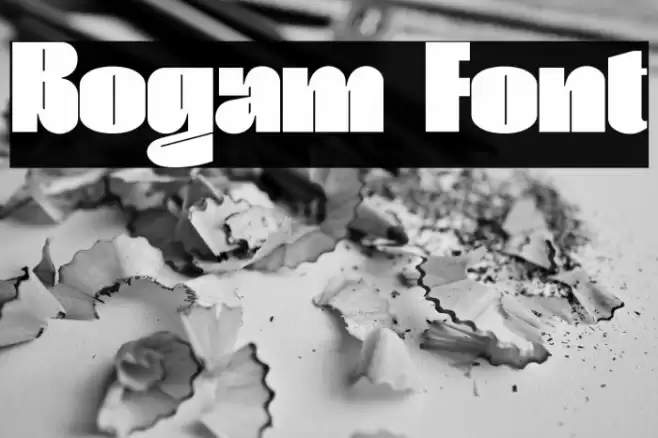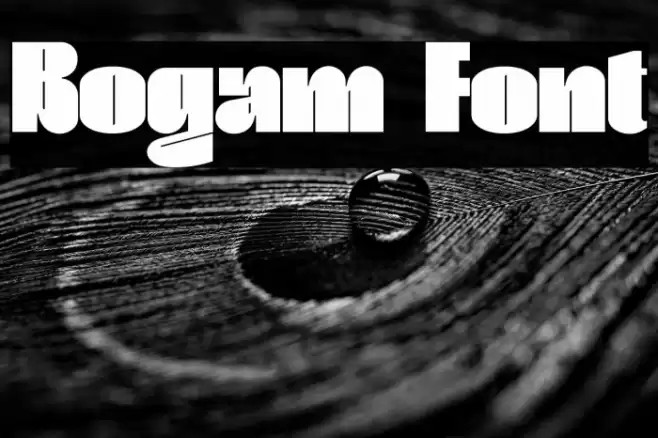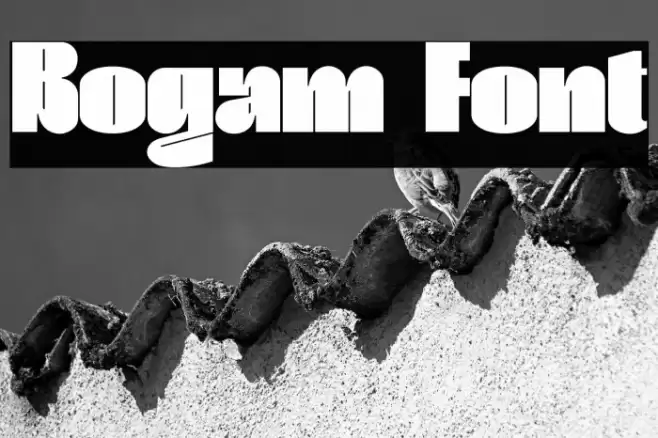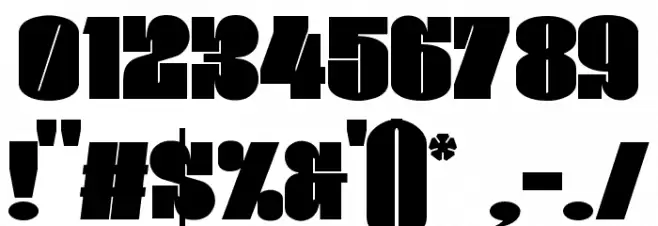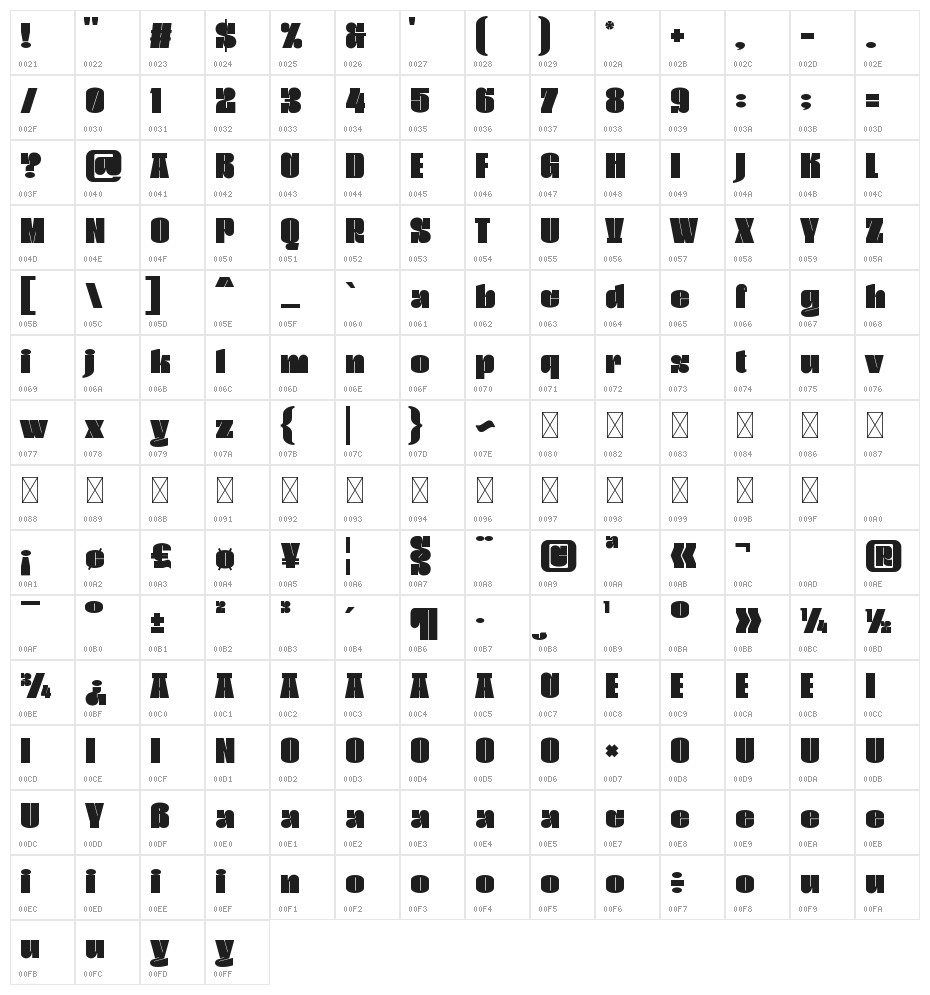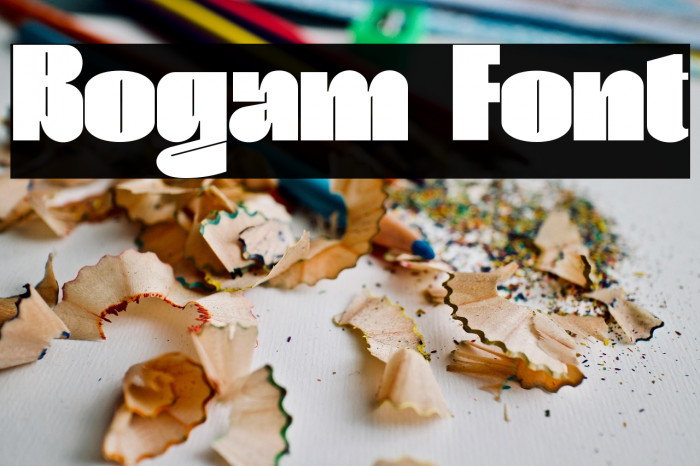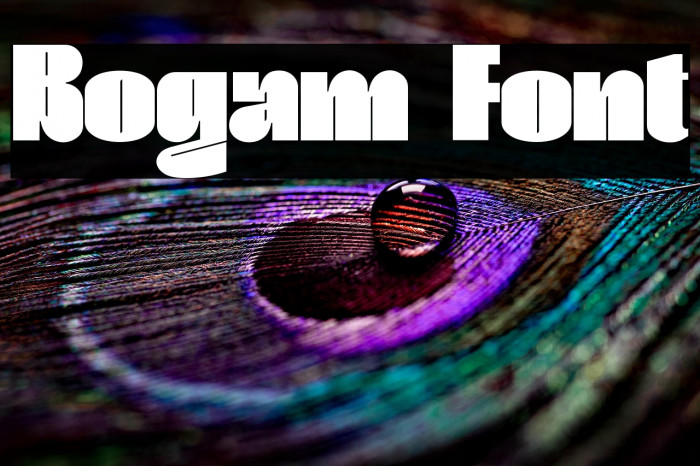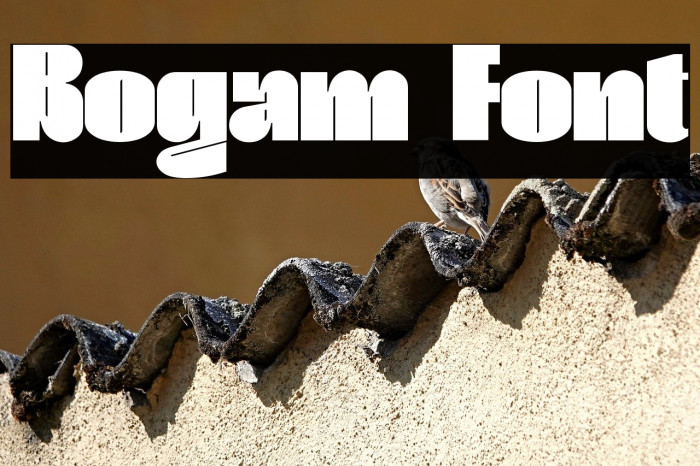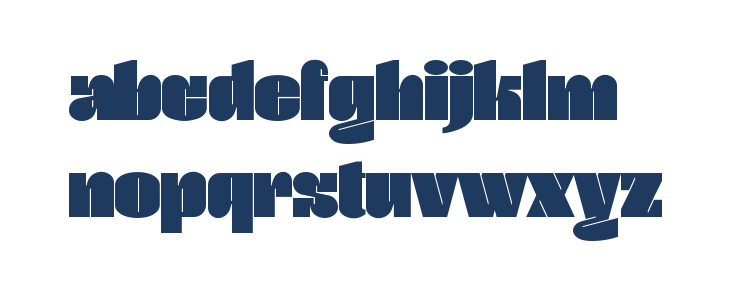
Bogam Font
Bogam Description
This font features a bold and striking design with thick, block-like characters that command attention. The uppercase letters are particularly wide and imposing, while the lowercase letters maintain the same boldness with slightly more rounded edges. The numbers and special characters follow the same robust style, ensuring consistency across all glyphs. The font's high contrast between the thick strokes and minimal negative space creates a powerful visual impact, making it ideal for headlines and display purposes. Its overall style is modern and decorative, with a touch of retro flair due to its exaggerated proportions.
A bold, high-contrast font with wide, block-like characters ideal for impactful headlines from Regular fonts.
- Proposed Projects: This font is perfect for projects that require a strong visual presence, such as posters, advertisements, branding materials, and large-scale signage.
- Width: Expanded
- Character Spacing: Tight